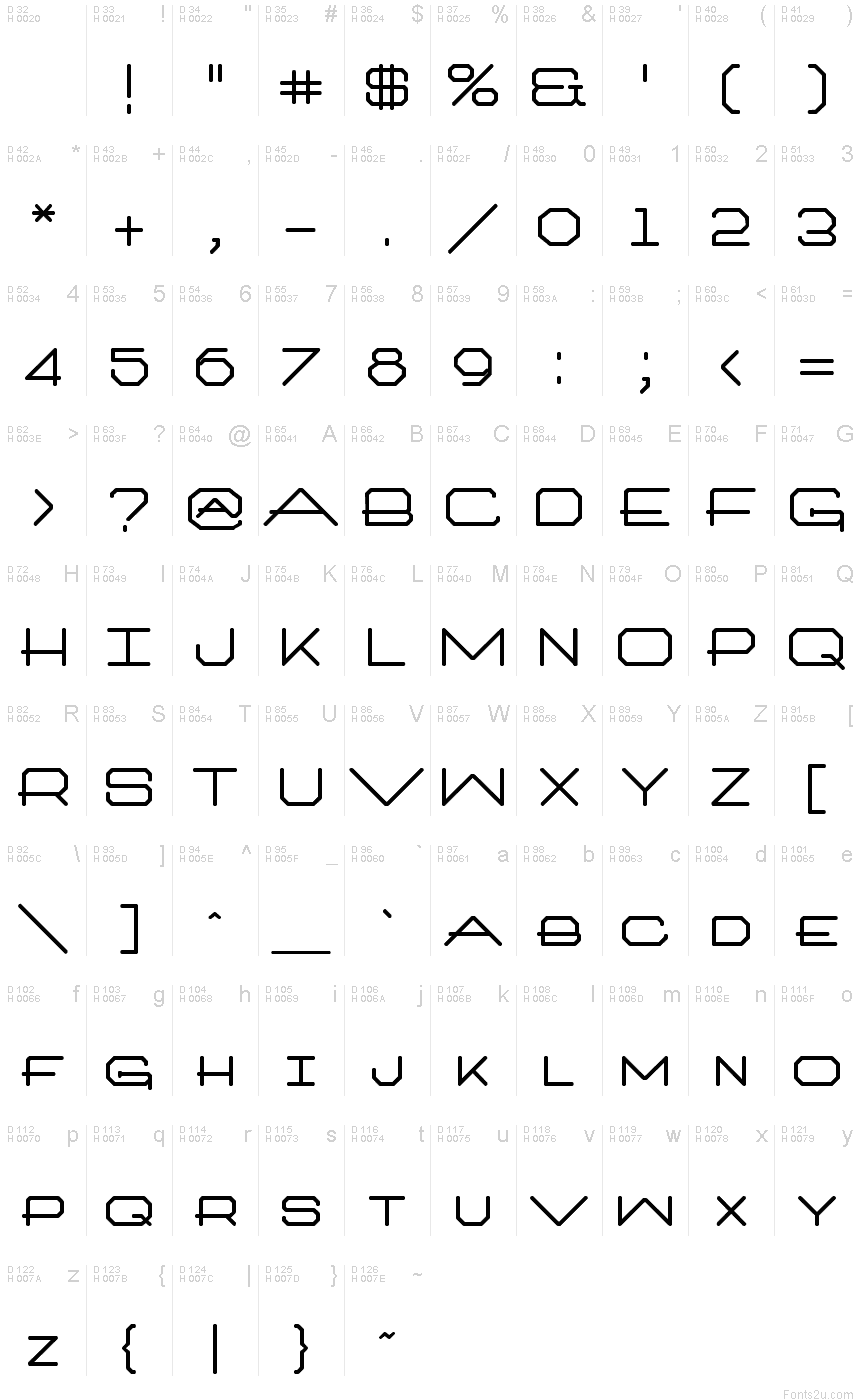
Architext Bold
Architext Bold font by S.G. Moye is a free techno display typeface that feels like it was plotted with a single, continuous pen stroke. Its tubular lines, chamfered corners, and airy, open shapes give text a cool fusion of blueprint lettering and retro‑futuristic circuitry. Letters sit with even, confident spacing, so words read clearly even when the forms get wonderfully mechanical.
Using Architext Bold, titles instantly pick up a sleek, engineered character that shines on sci‑fi posters, architecture or engineering logos, tech conference branding, UI headers, gaming titles, and experimental packaging. This free font loves big sizes where its wireframe details can breathe; pair it with a simple grotesque sans-serif for body copy to keep layouts sharp and readable.